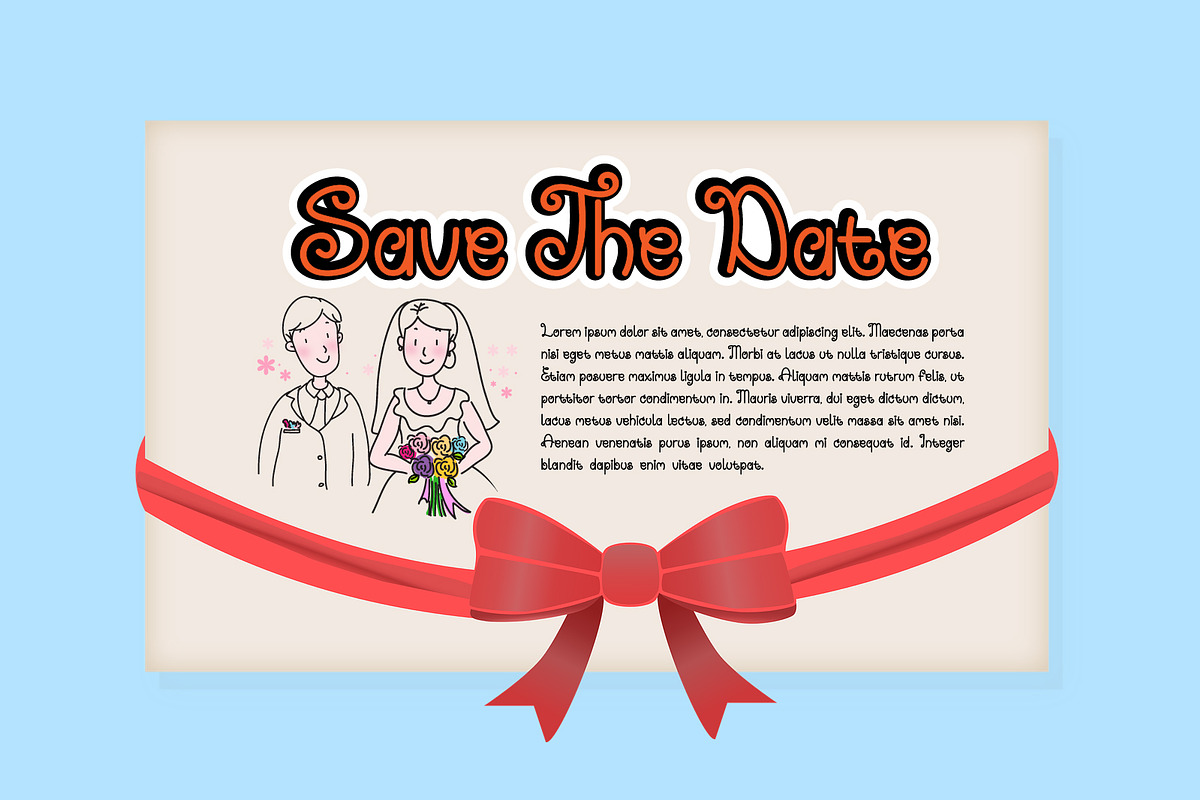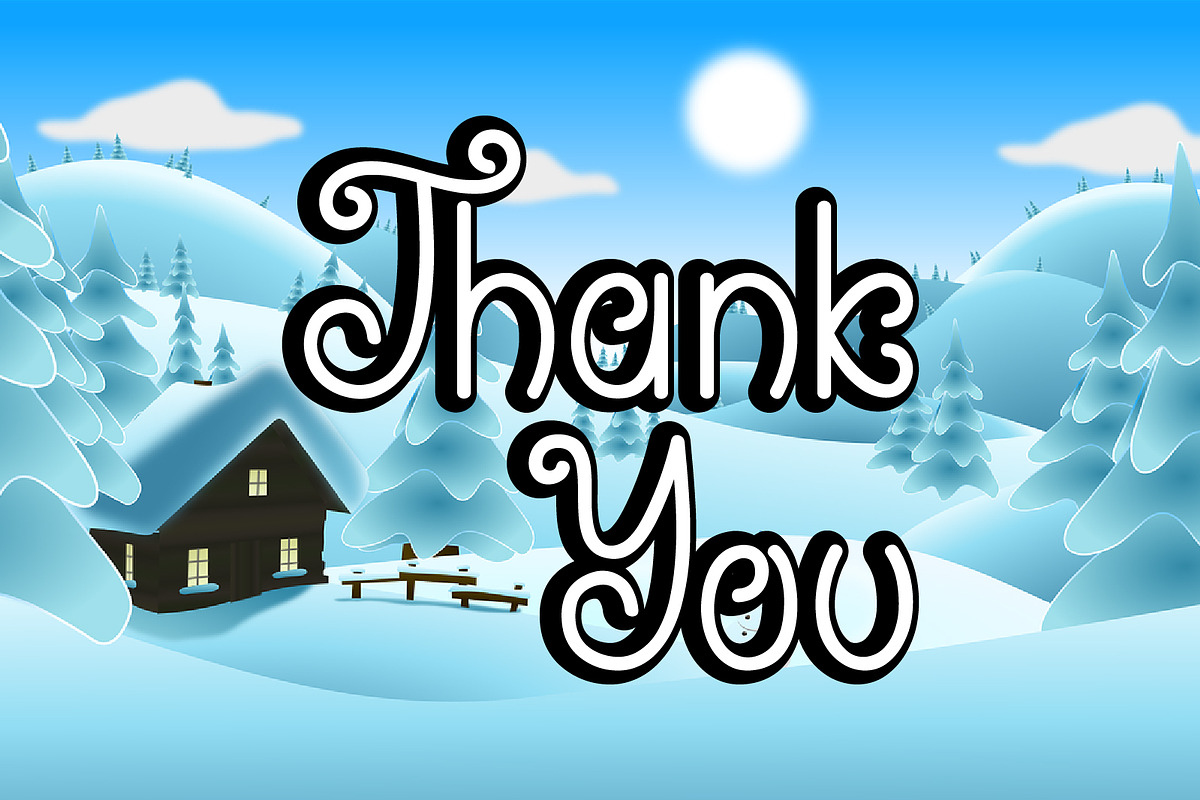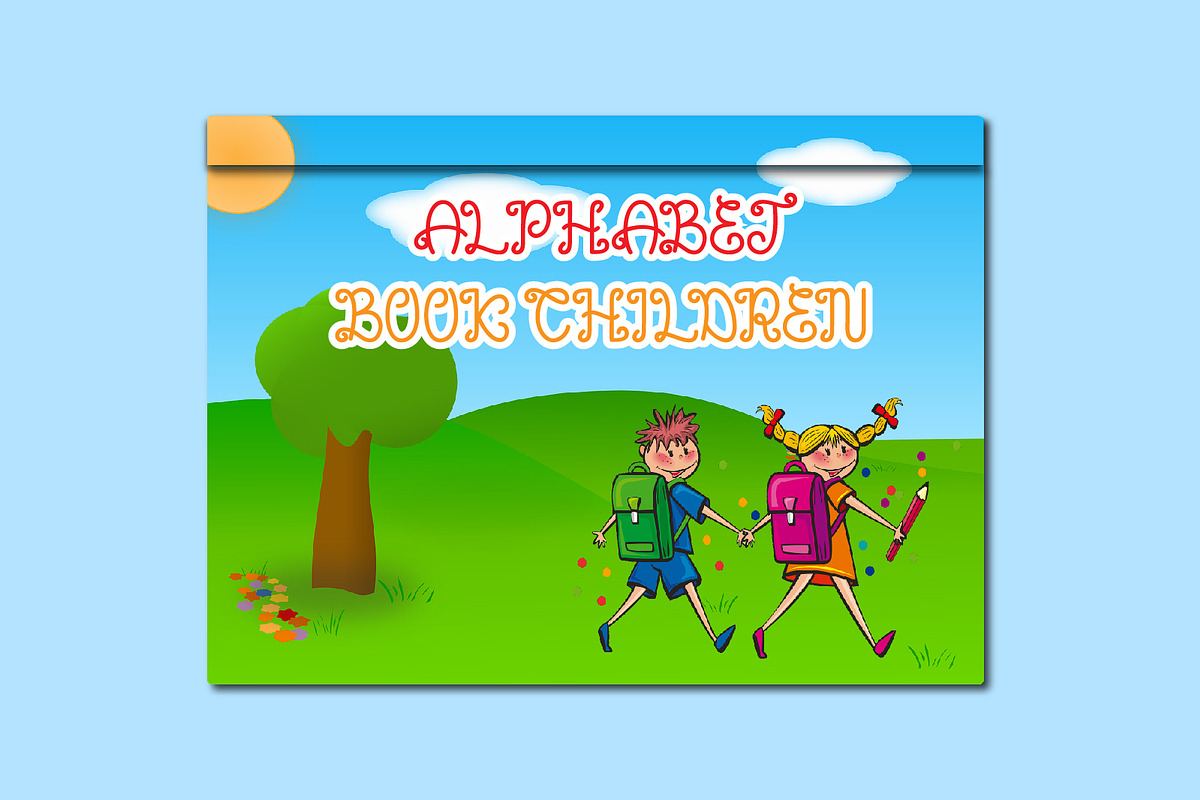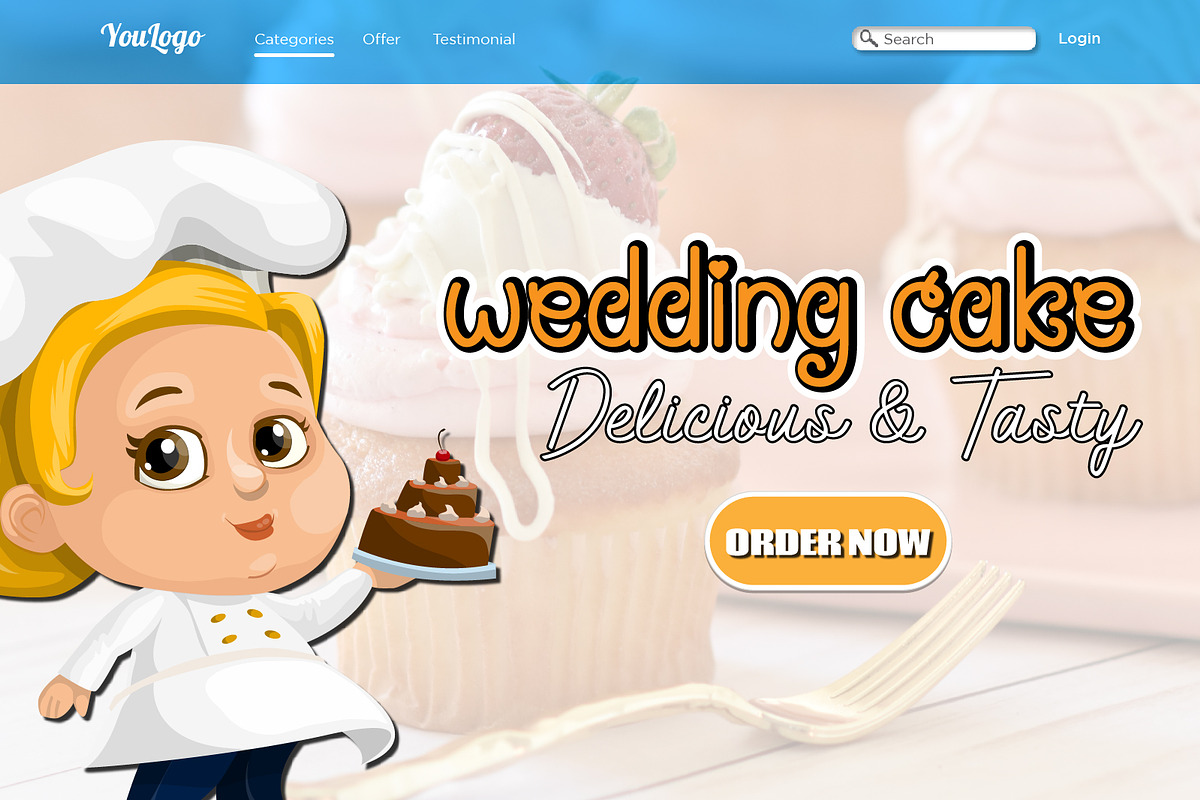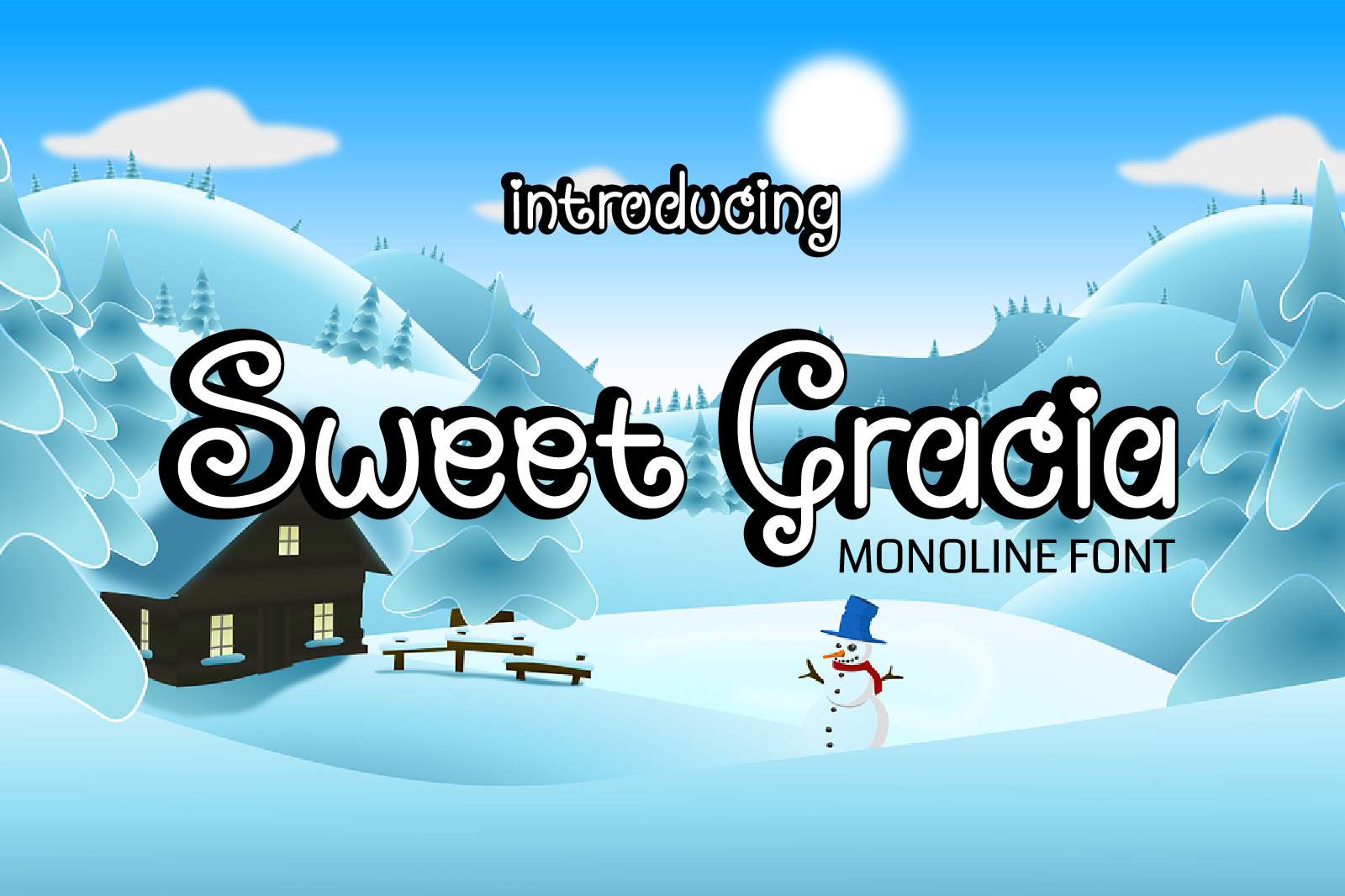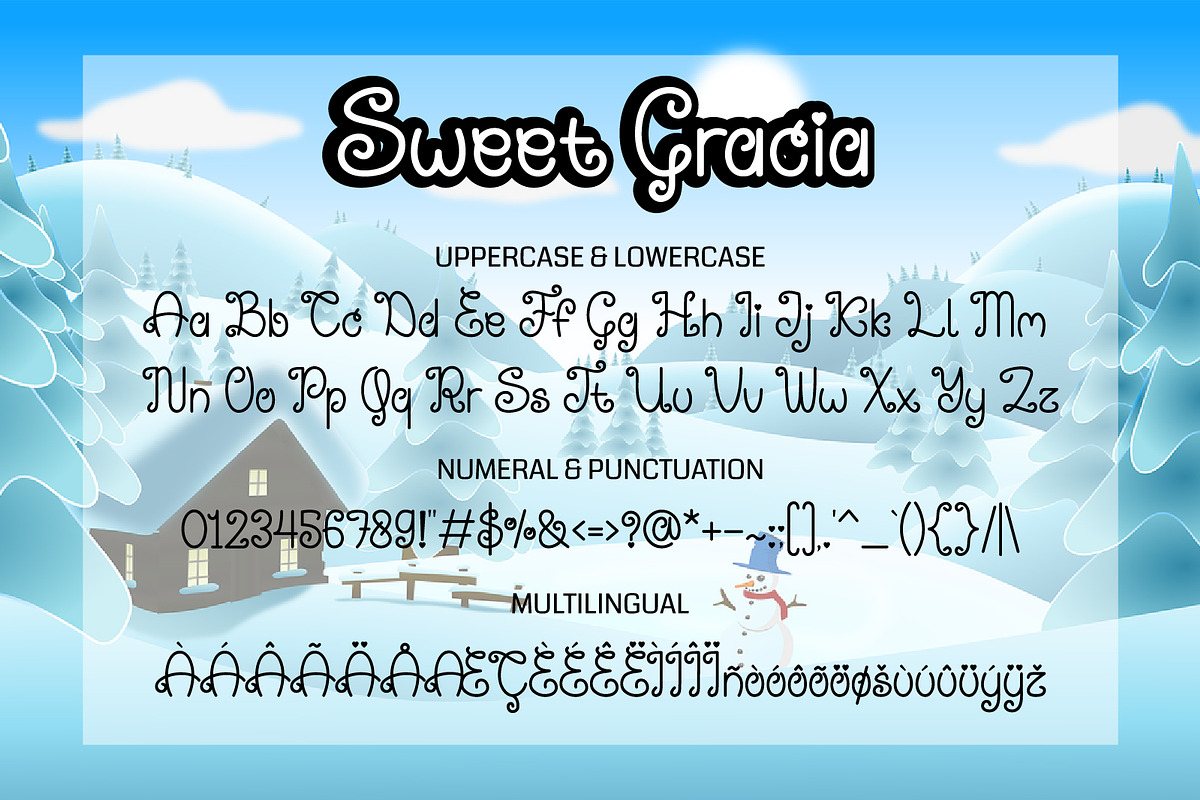
Sweet Gracia | Monoline Font
Sweet Gracia is a beautiful monoline font. Use this stunning font to give your crafting projects a clean and modern look. This font will turn any creative idea into a true work of art!